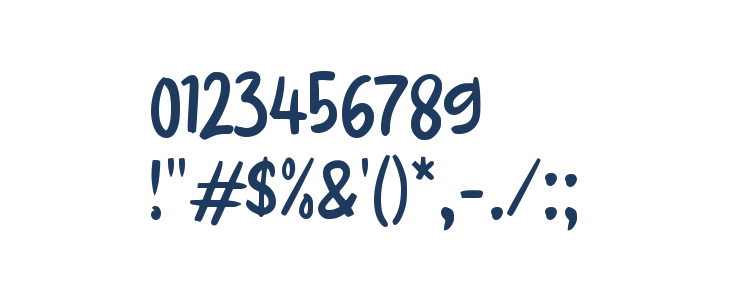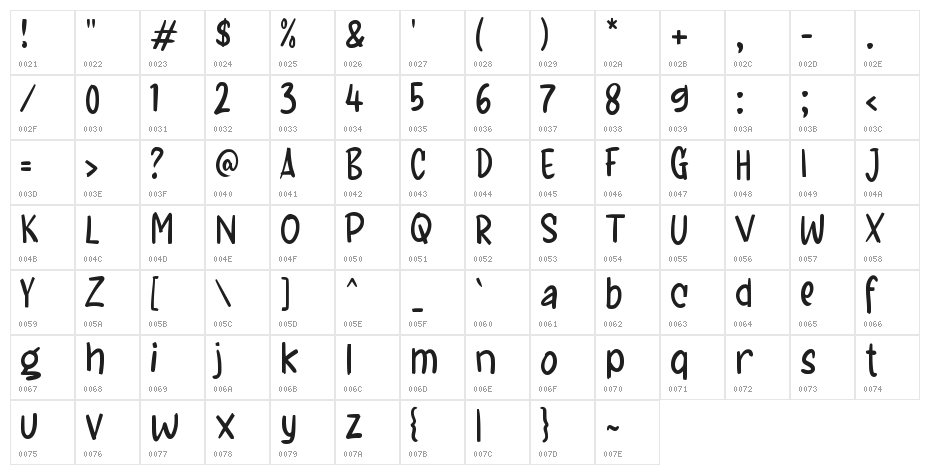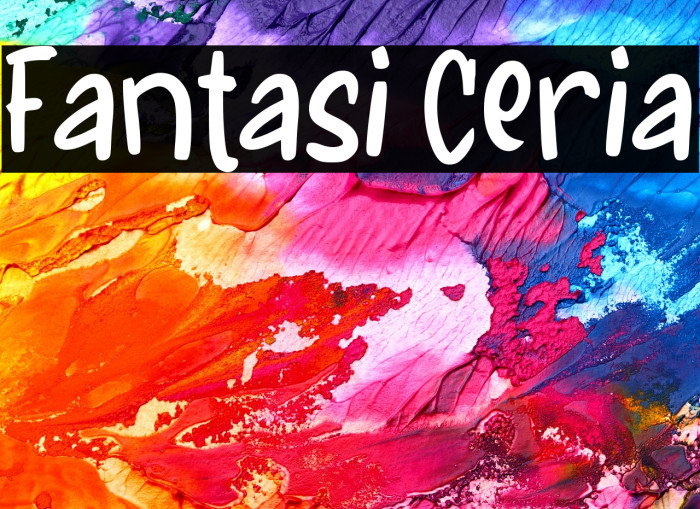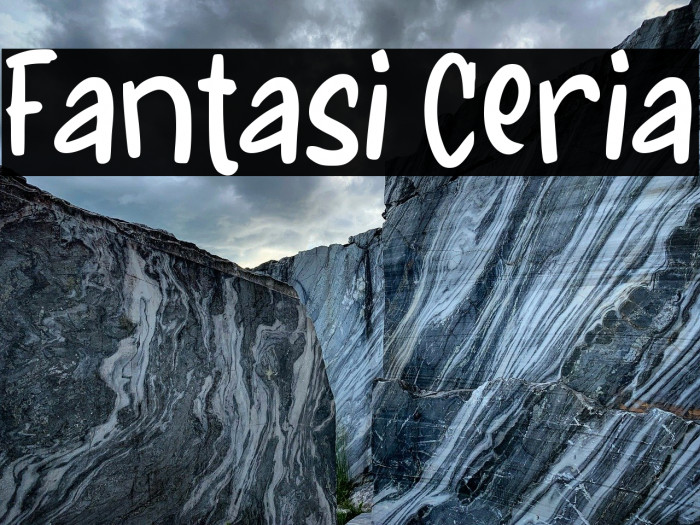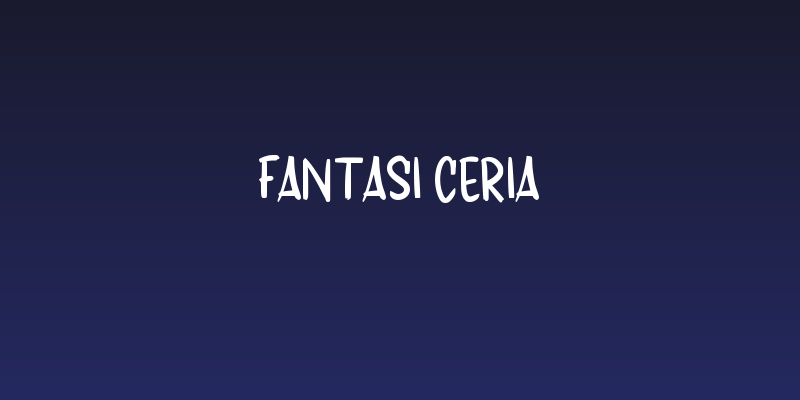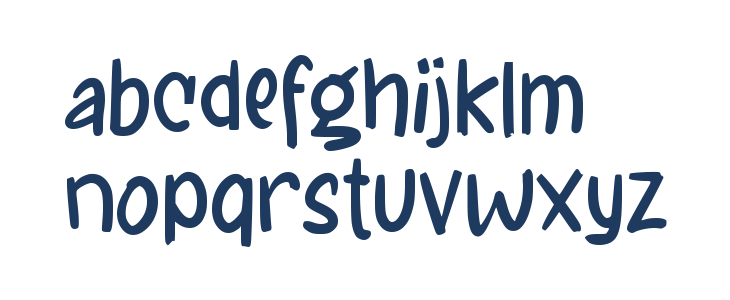
Fantasi Ceria Font
Fantasi Ceria Description
This playful and whimsical font features a handwritten style with a casual, friendly appearance. The characters are slightly irregular, adding a touch of personality and charm. The strokes are bold and consistent, providing good readability while maintaining a fun aesthetic. The uppercase letters are tall and slightly narrow, while the lowercase letters are more rounded and open. The numbers and special characters follow the same playful style, making this font versatile for various creative projects.
| Use Case | Headlines, Logos, Social media graphics |
| Proposed Projects | Ideal for children's books, greeting cards, playful branding, and social media graphics. |